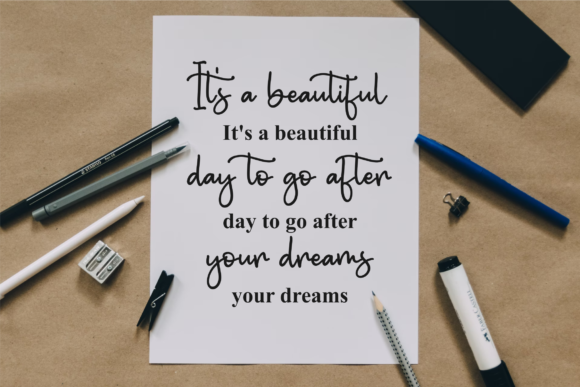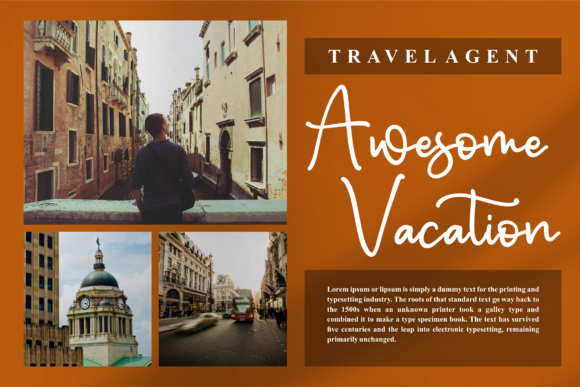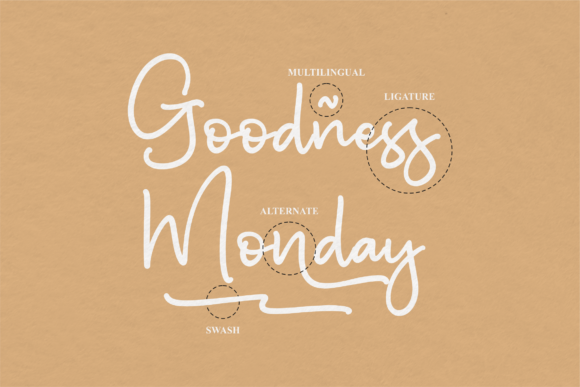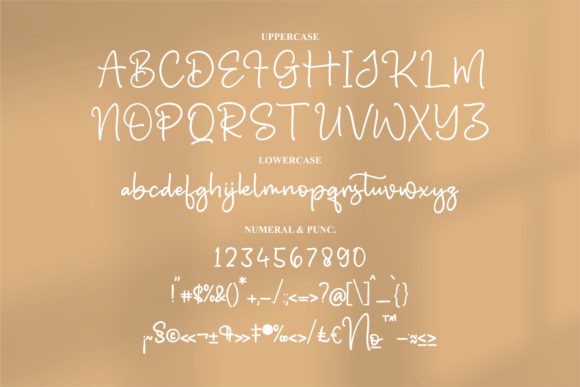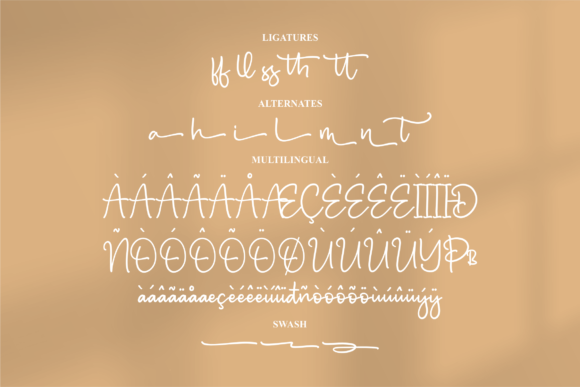
About Benattia Signhale Font
Benattia Signhale is a beautiful graceful script font. Get inspired by its lovely style and use it to create your favorite designs. This font is PUA encoded which means you can access all glyphs and swashes with ease!